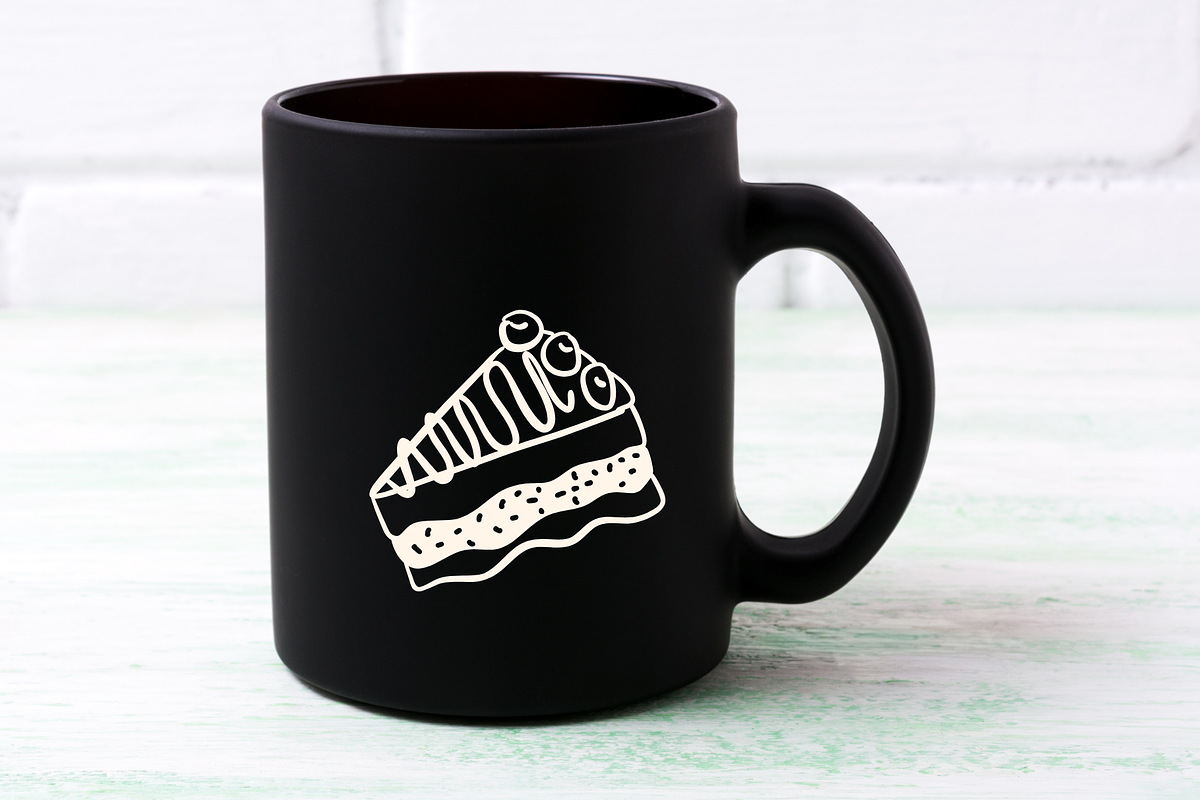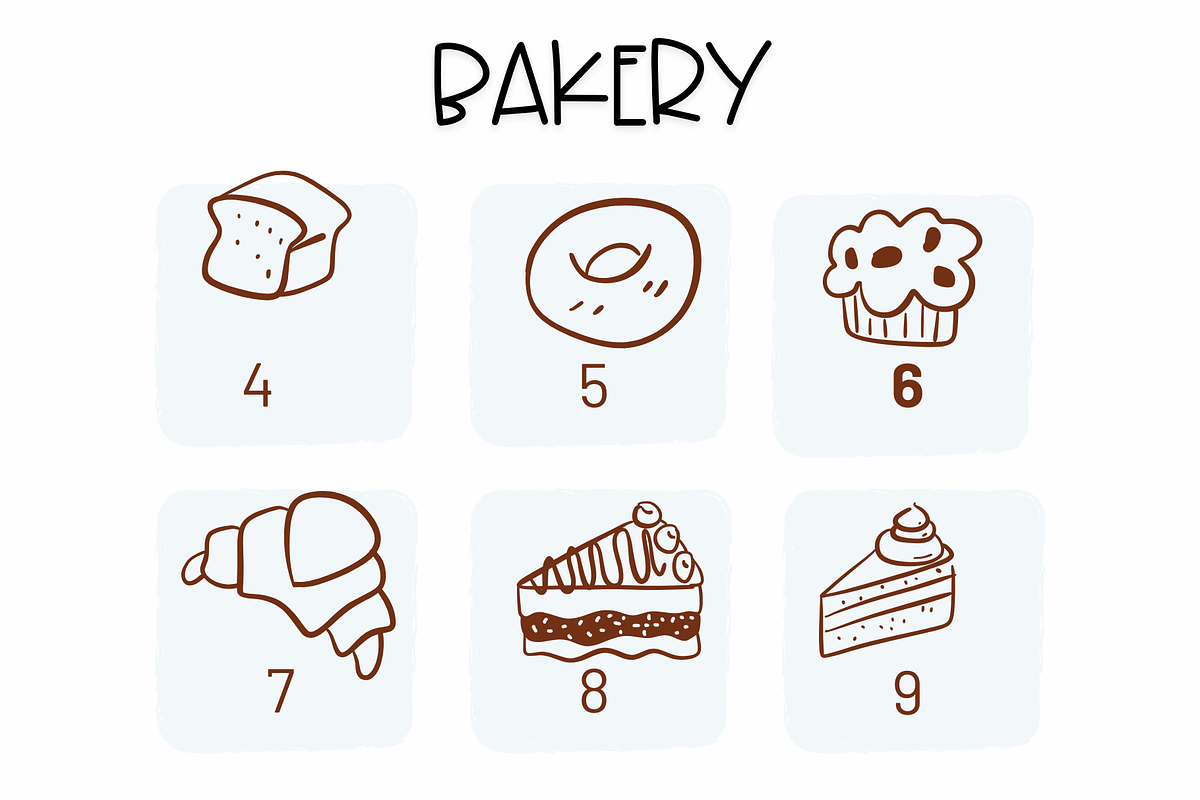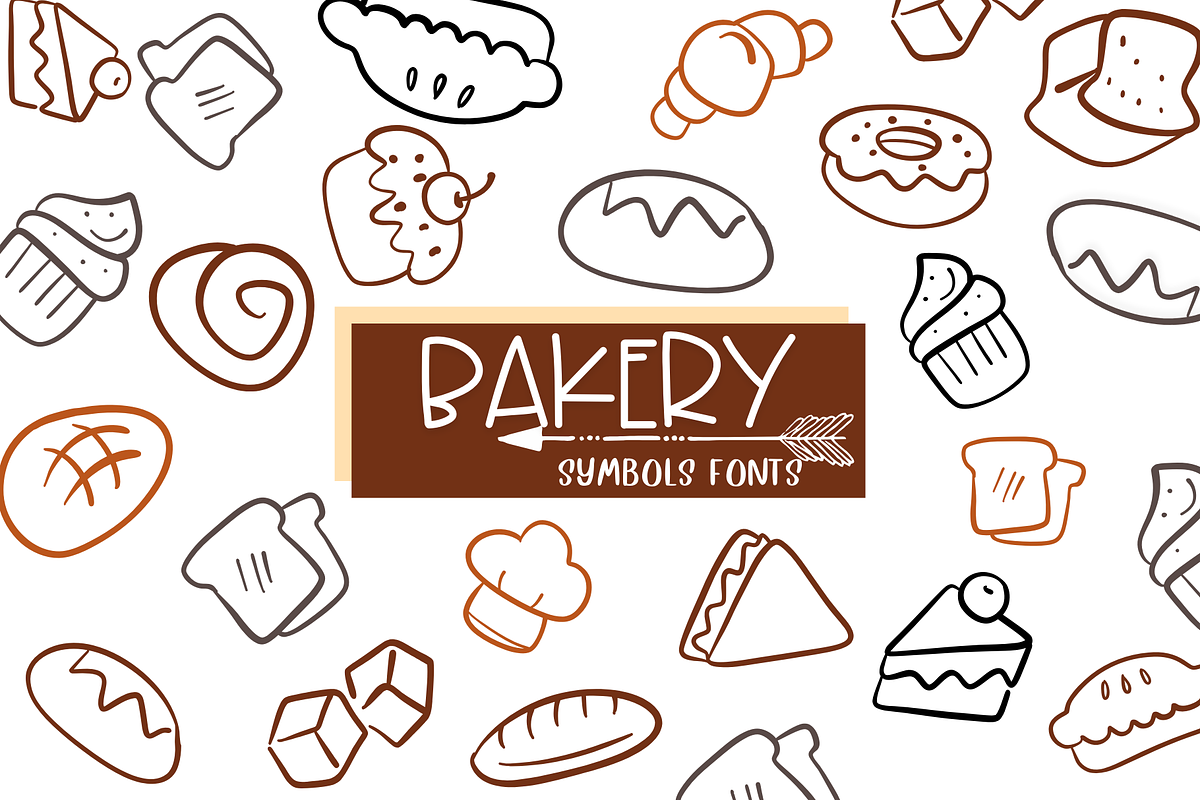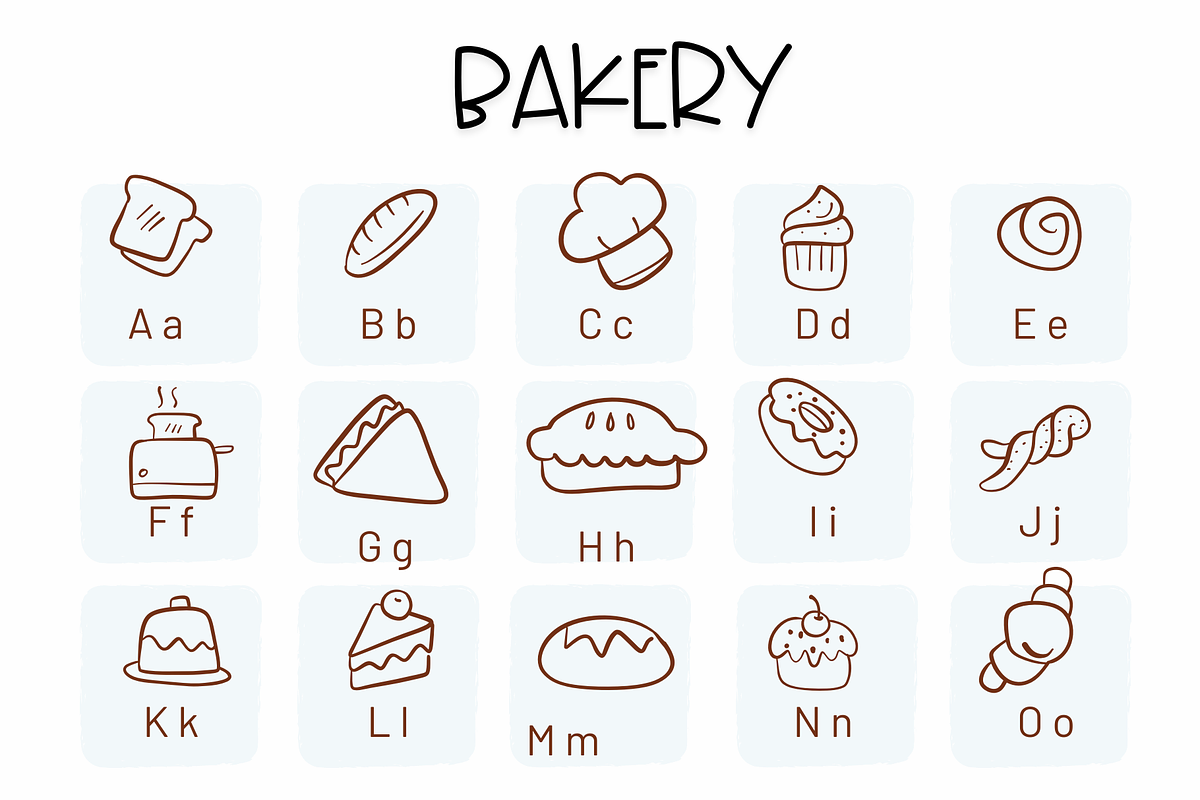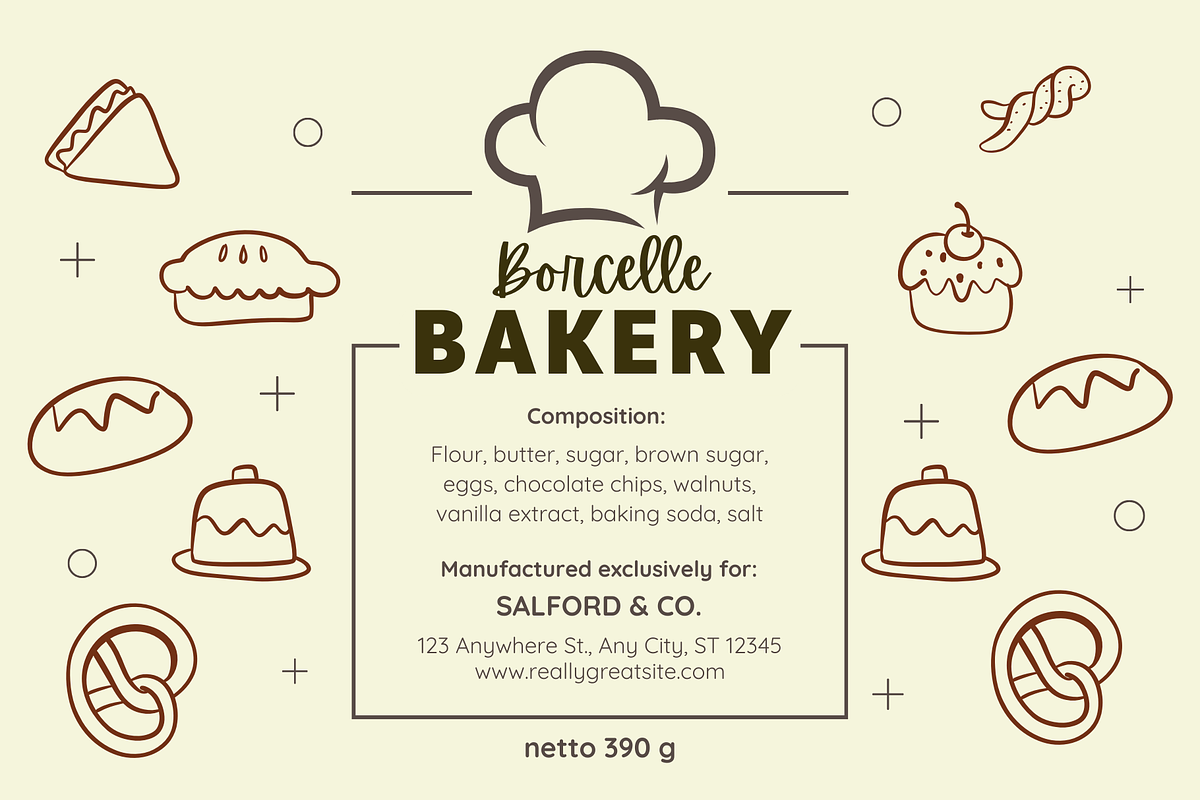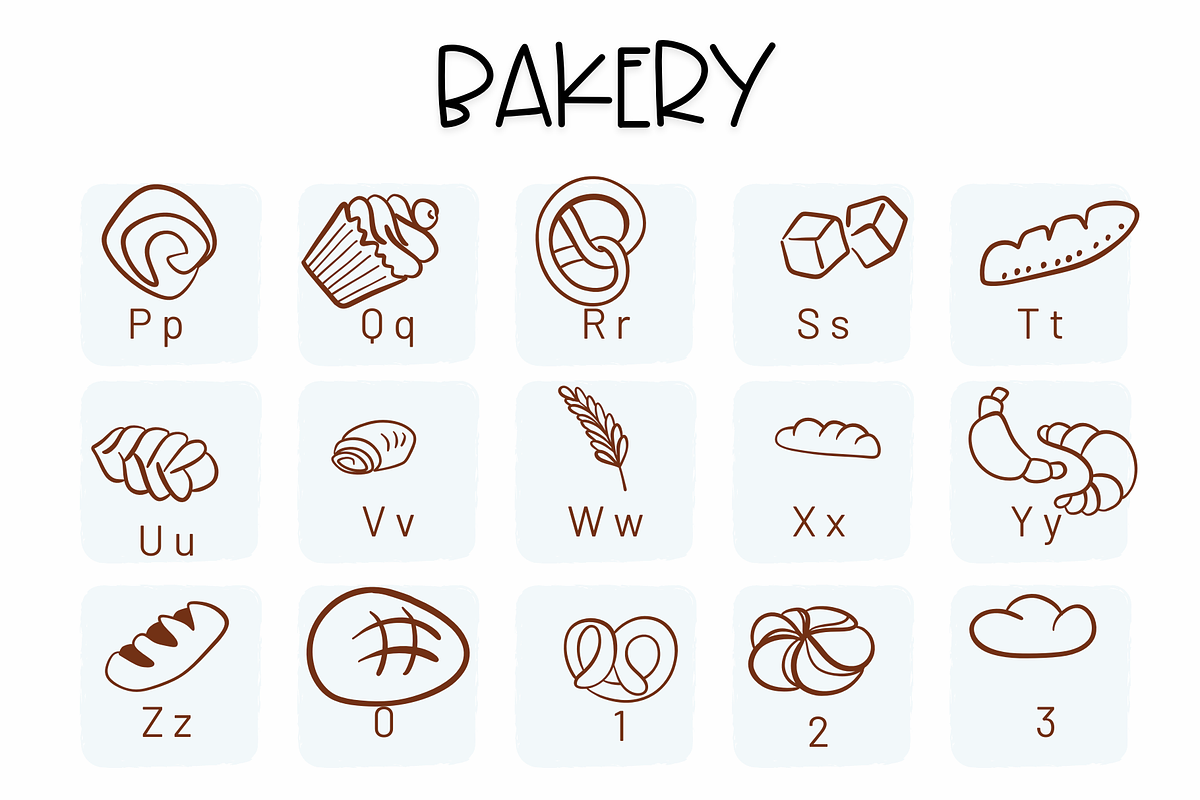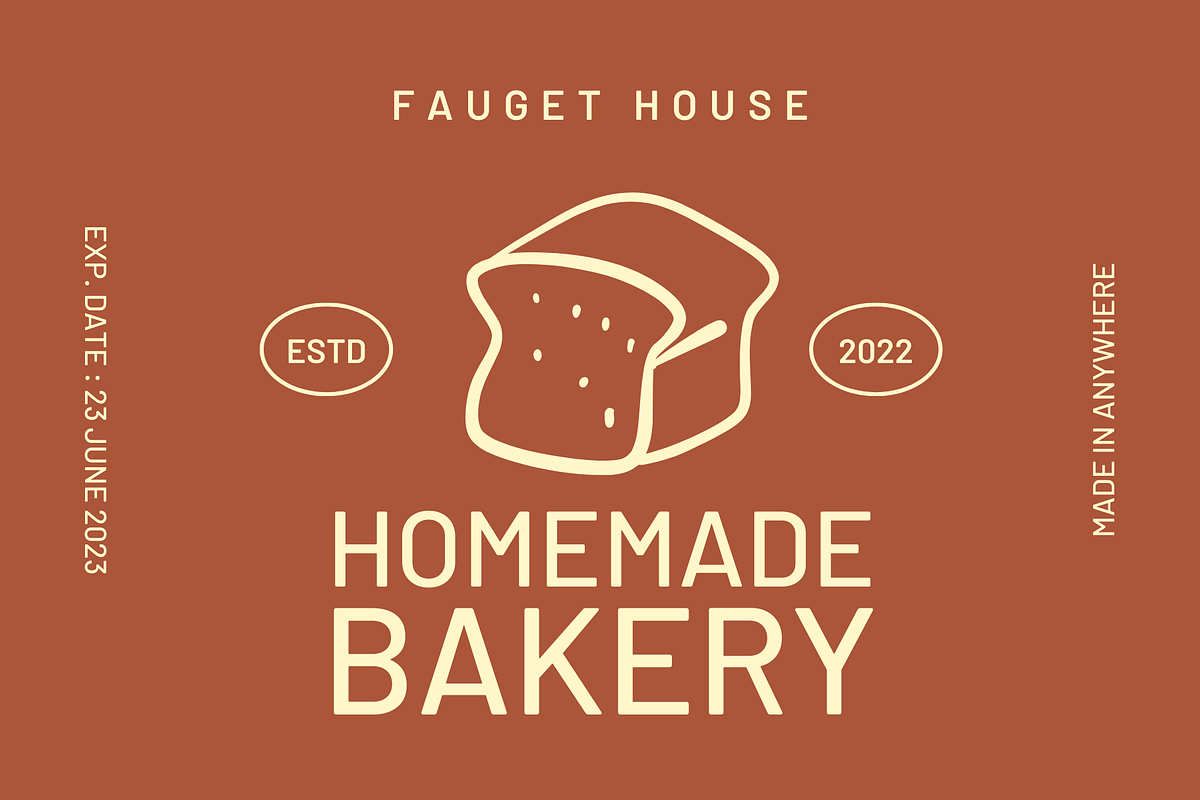
Bakery | Symbols Fonts
Bakery is a symbol fonts. You can use it for taking notes, writing a diary, or making greeting cards. However, you can still use it for other designs, such as banners, content, mugs, cards, shirts, stationery, social media posts, and more!
Bakery | Symbols Fonts by Sirinart fits naturally into Branding, posters, packaging, typography.